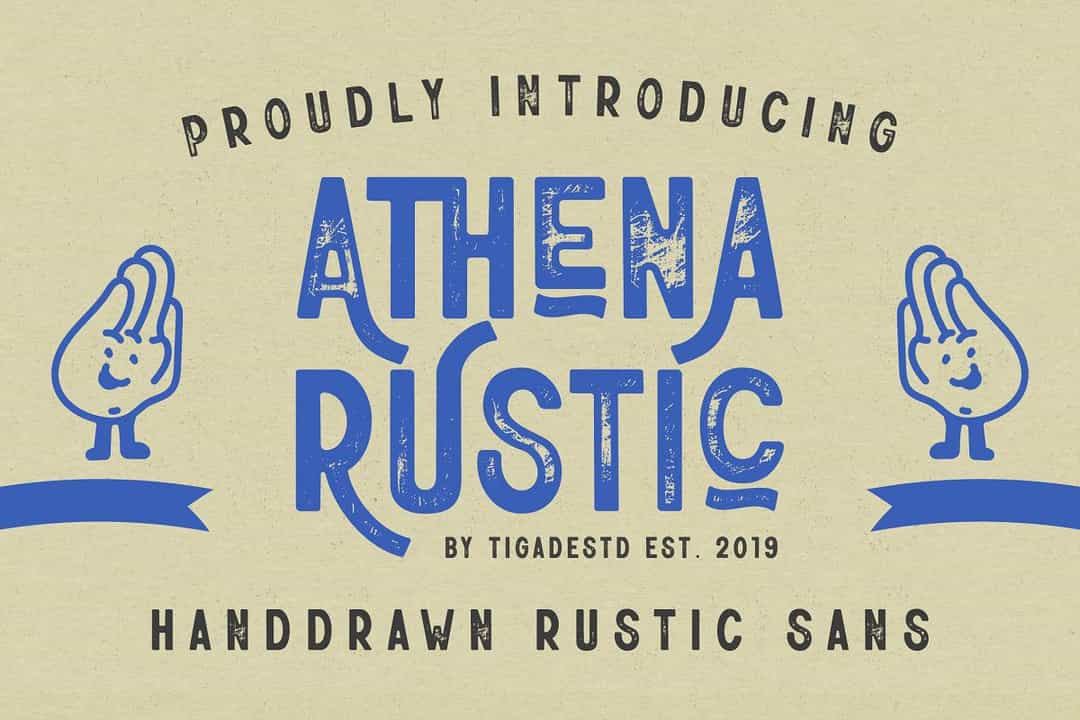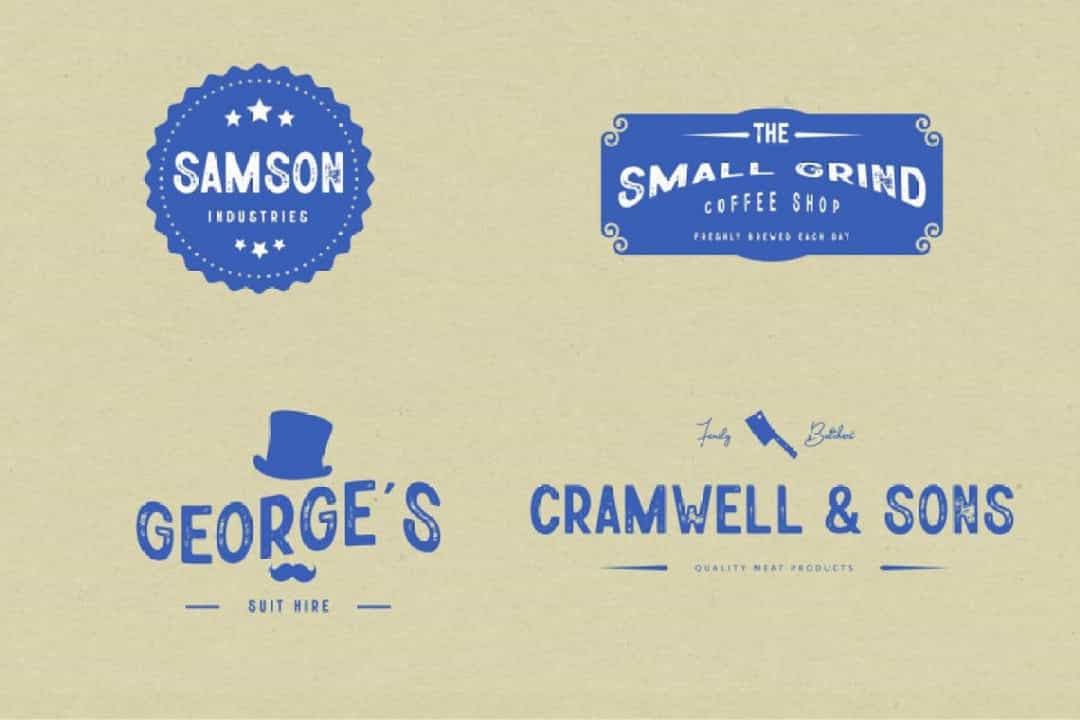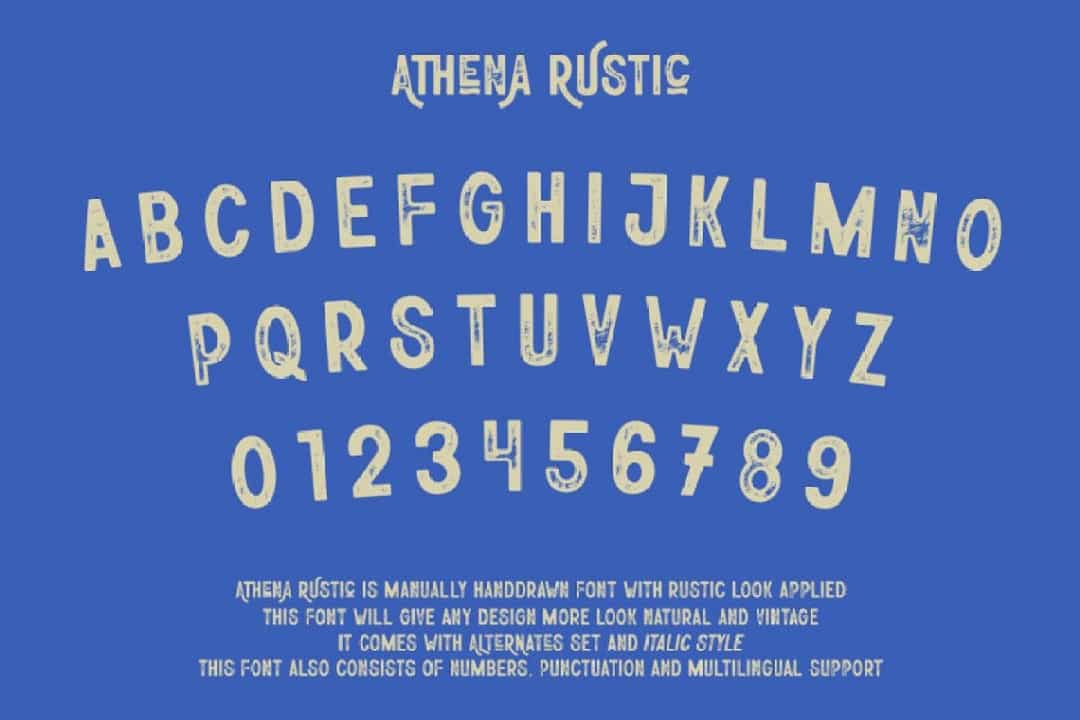
Athena Rustic is a hand drawn rough sans serif font that appears elegant. While this font may be used professionally, you can add retro elements into your designs with its rustic texture that gives the impression of old world craftsmanship and retro styling.